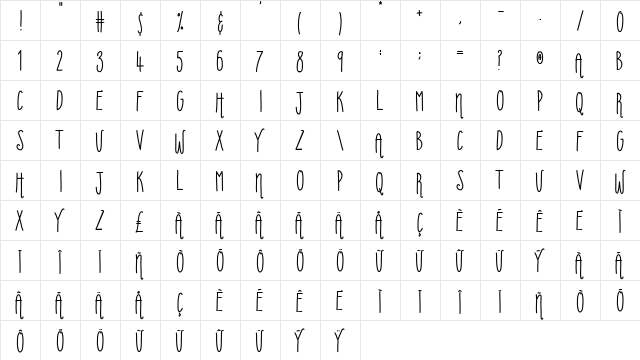
Uberfriends Regular
Design Context for Uberfriends Typeface
Uberfriends is a composed and adaptable typeface that performs quietly and consistently across a wide range of design contexts.